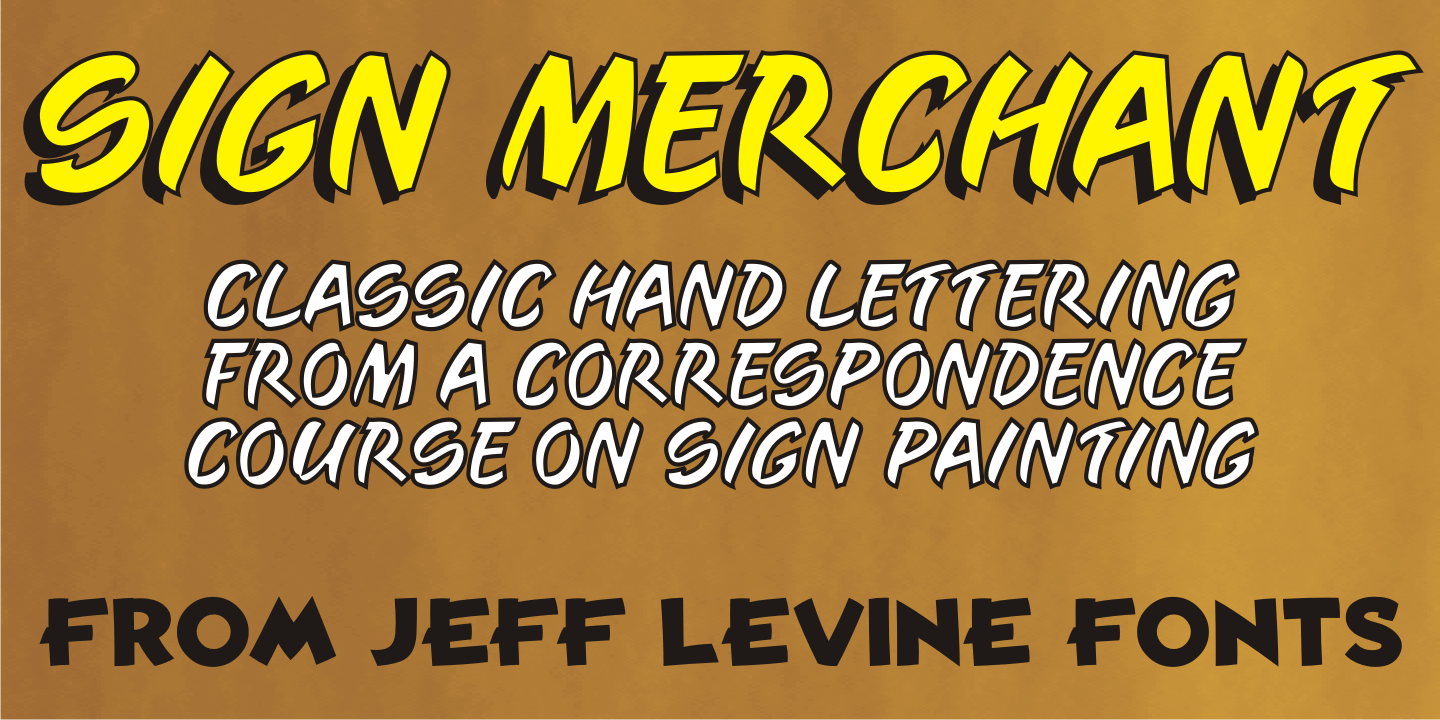
Sign Merchant
There was a time in this country when many young people studied a trade via a correspondence course through the mail. While this method still exists, it's now more common to find students taking online classes.
From an early-1960s course in sign painting comes Sign Merchant JNL, a classic brush stroke type design popularized on show cards and posters.